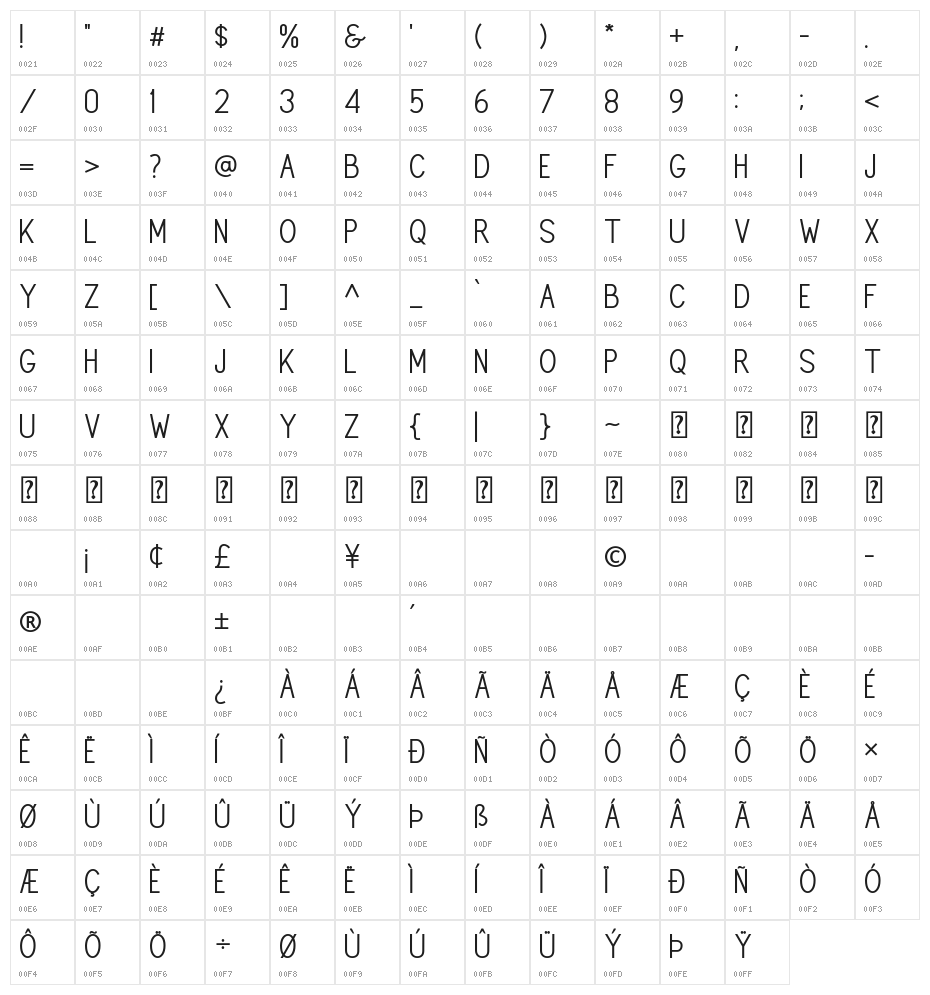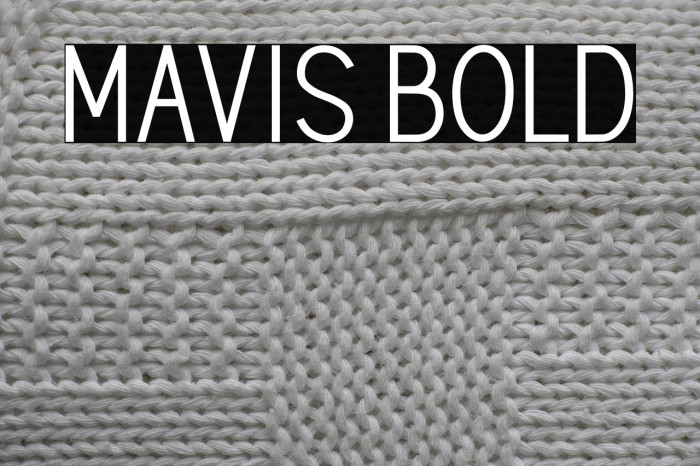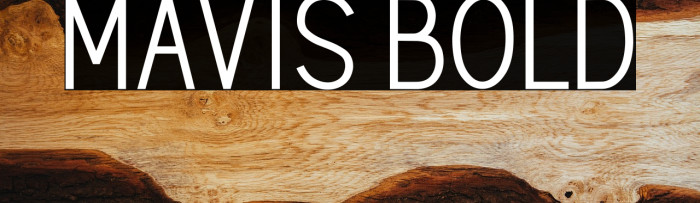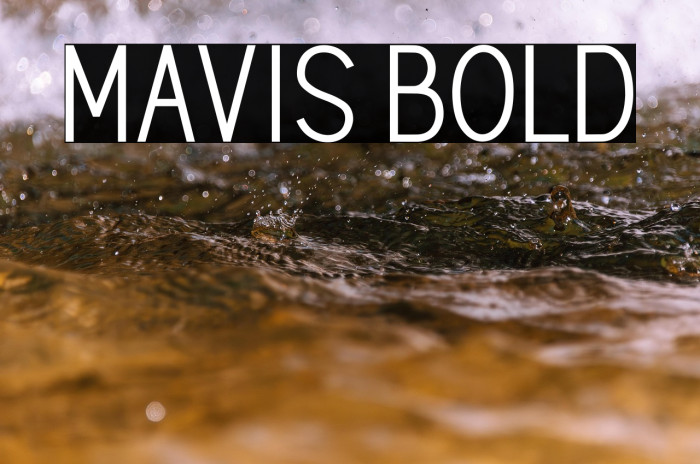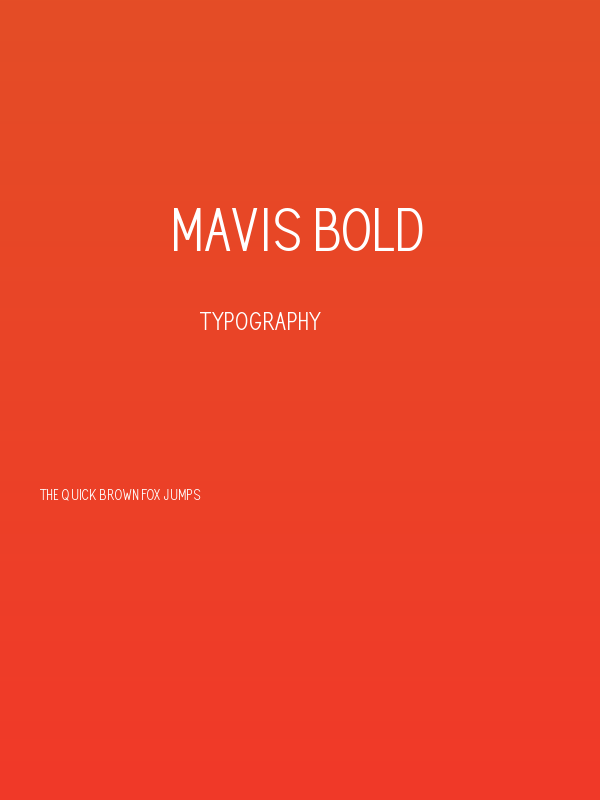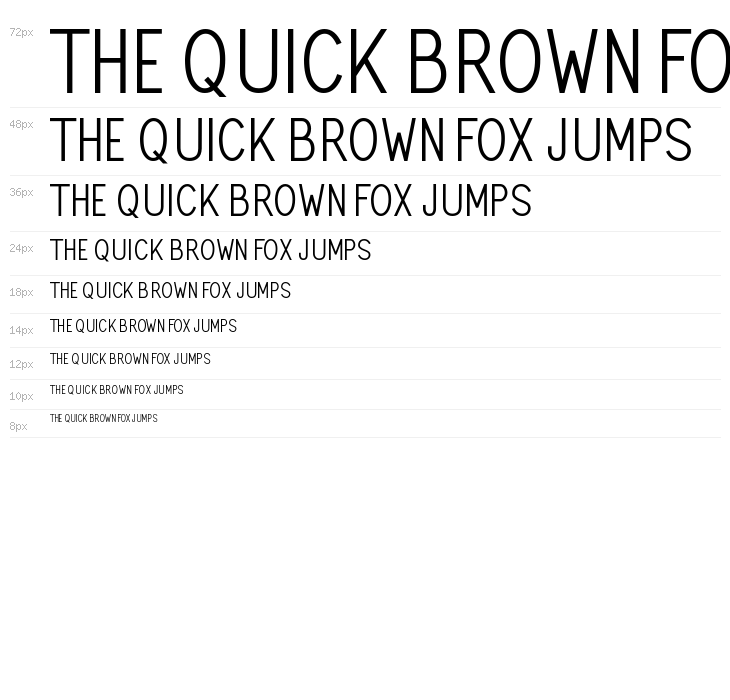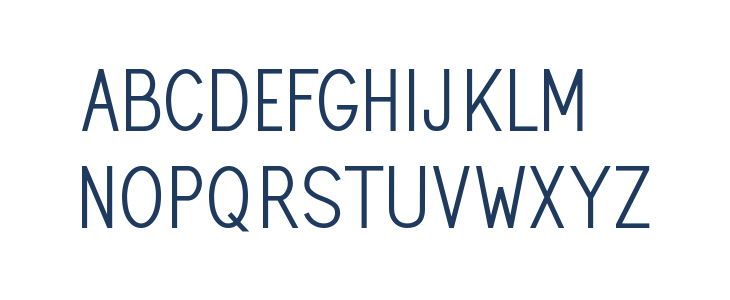
MAVIS Bold Font
MAVIS Bold Description
This font exhibits a clean and modern sans-serif style, characterized by its bold weight and uniform stroke width. The characters are well-defined with a geometric structure, providing a sense of clarity and precision. The uppercase and lowercase letters maintain a consistent height, contributing to a balanced appearance. The numerals are straightforward and align well with the overall design, ensuring readability. Special characters are distinct and integrate seamlessly with the alphabetic characters, making this font versatile for various applications. Its simplicity and boldness make it suitable for impactful designs.
| Proposed Projects | Ideal for branding, advertising, headlines, and digital media where a strong, modern presence is desired. |